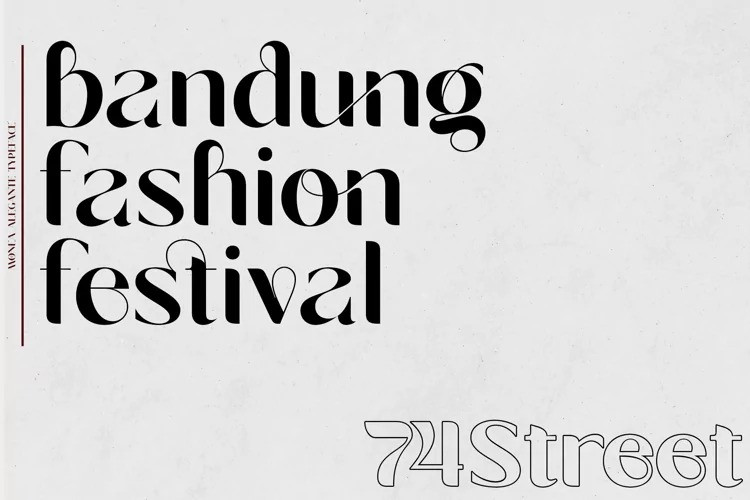
Monea Alegante Font
Monea Alegante Sans Serif Font
A modern vintage sans serif font created by Sansakerta with a fancy, playful, unique, and versatile vintage style. It looks amazing at display sizes and is easily readable in text size. Perfect for branding projects, Logo design, Clothing Branding, product packaging, magazine headers, or simply as a stylish text overlay to any background image.